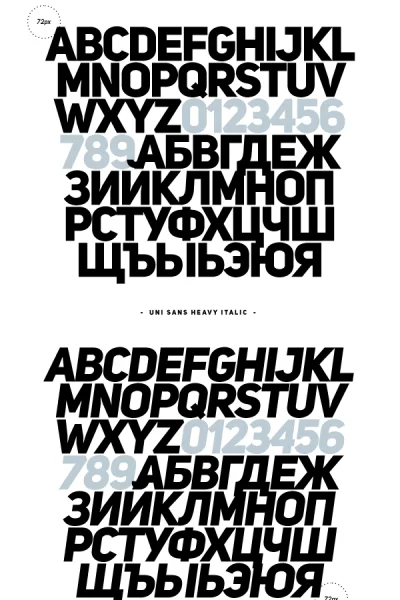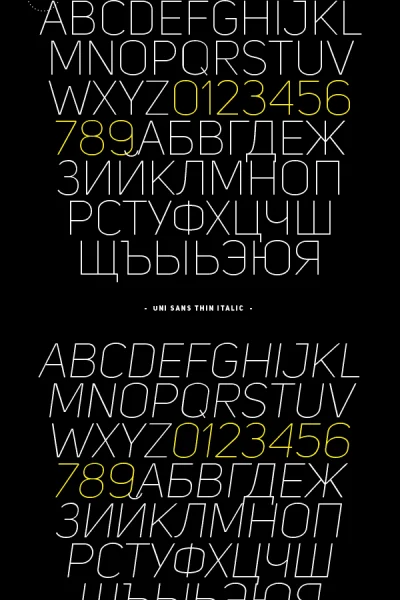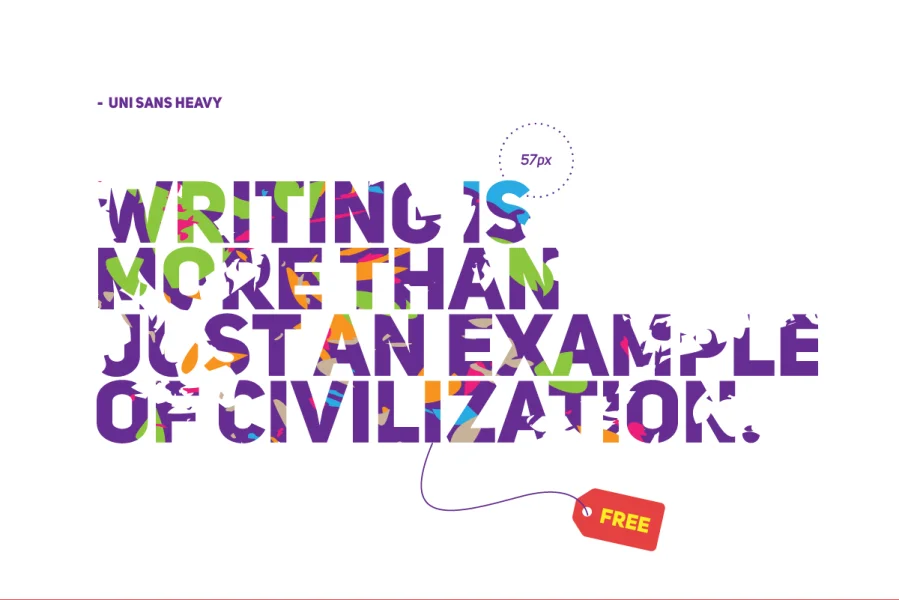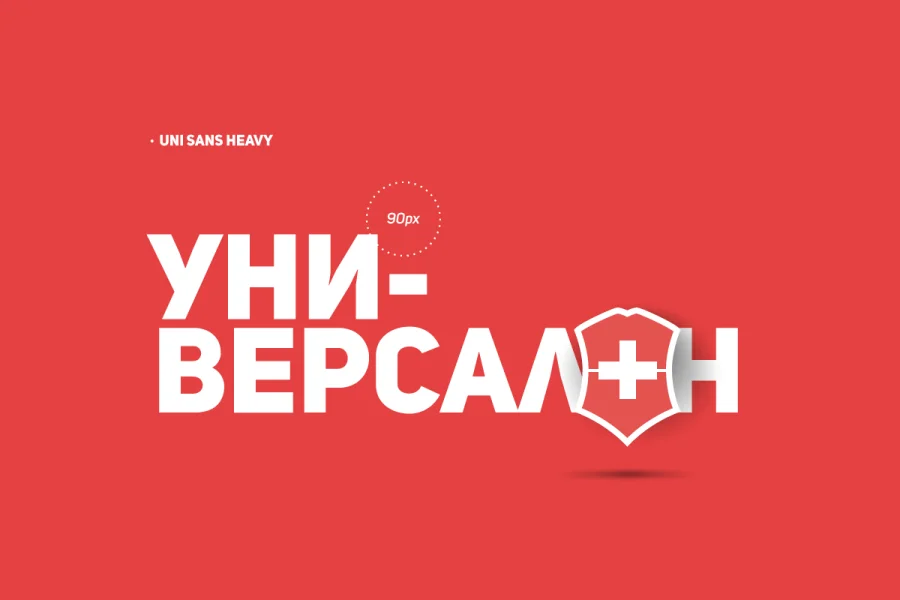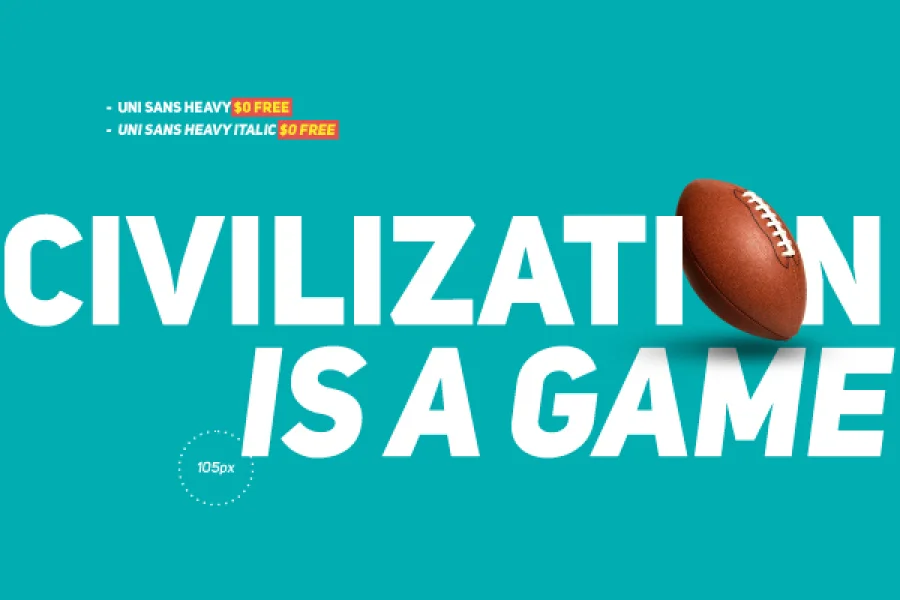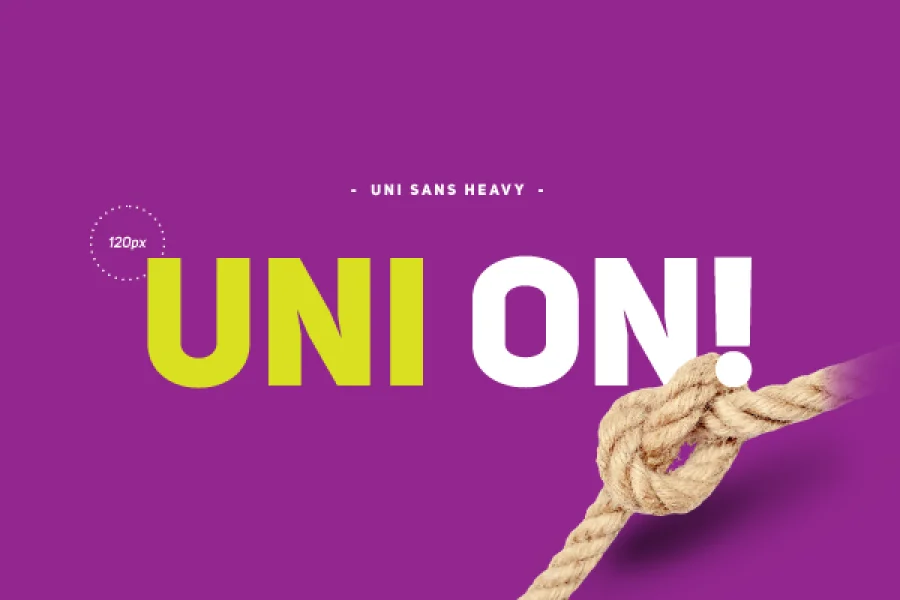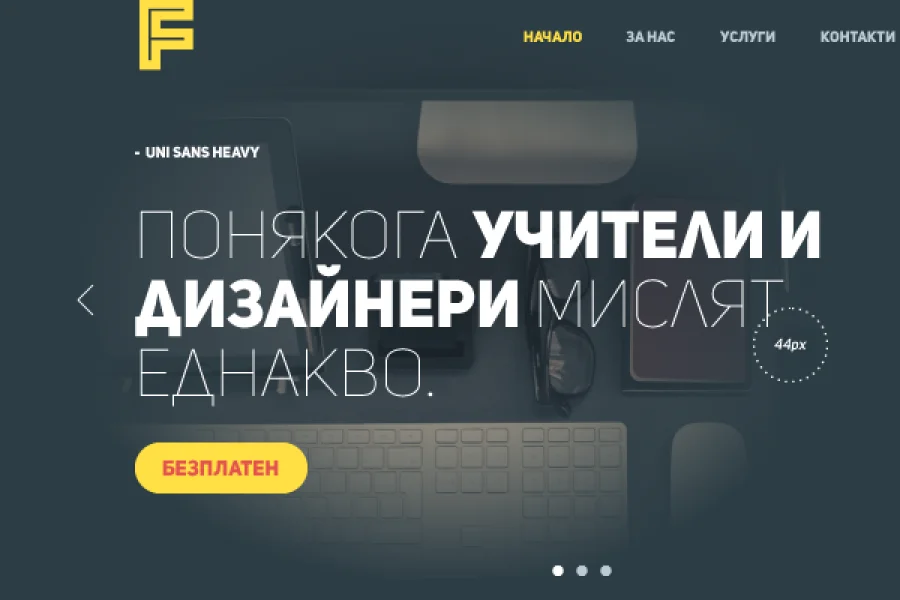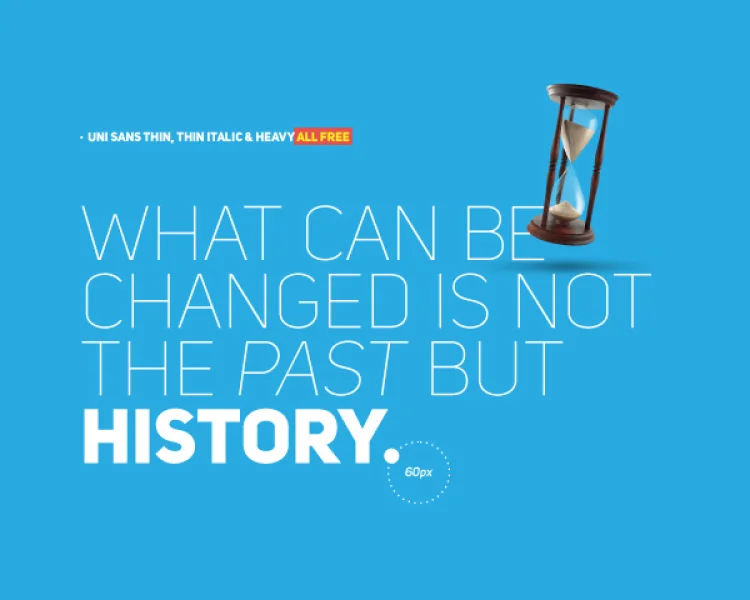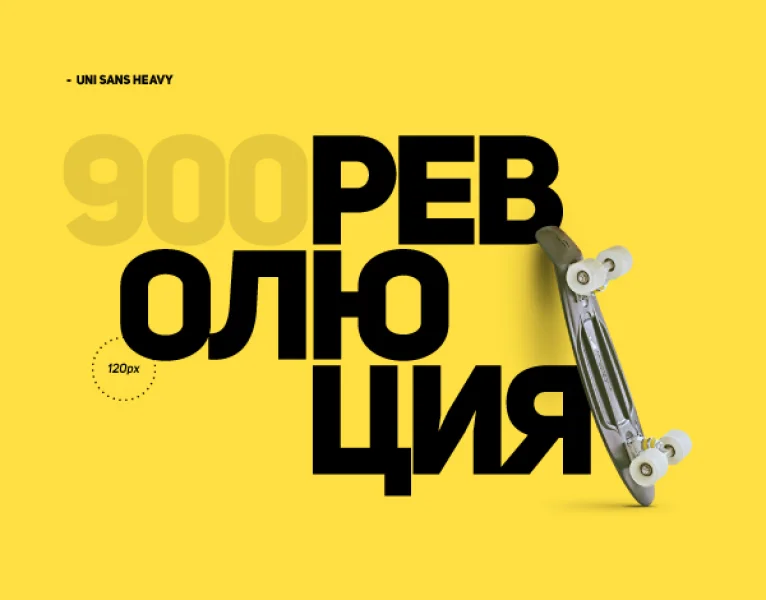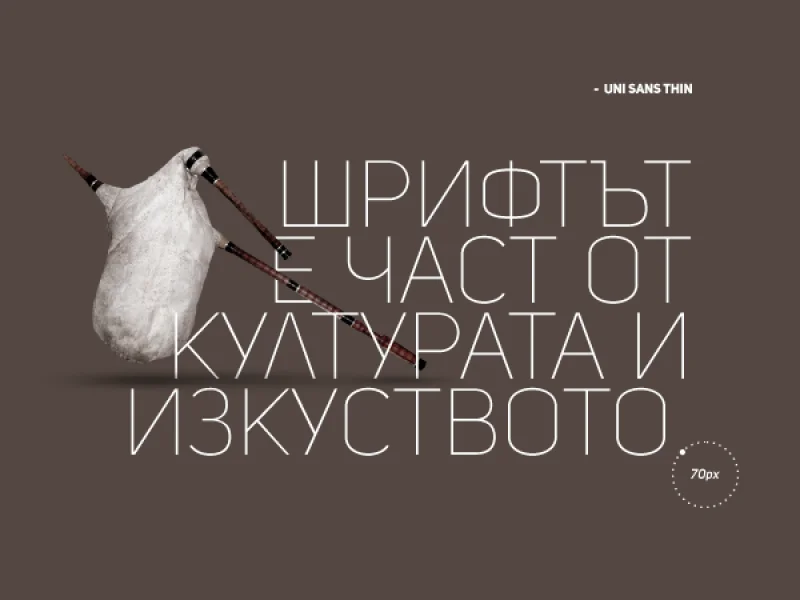
Uni Sans Font Family
Designed by Fontfabric
Fontfabric type foundry presents Uni Sans Free. Four font weights set in Caps from our well known best seller Uni Sans, available for free download. Designed by Svet Simov, Ani Petrova (cyrillic alphabet), Vasil Stanev (font development). Presentation designed by Radomir Tinkov.